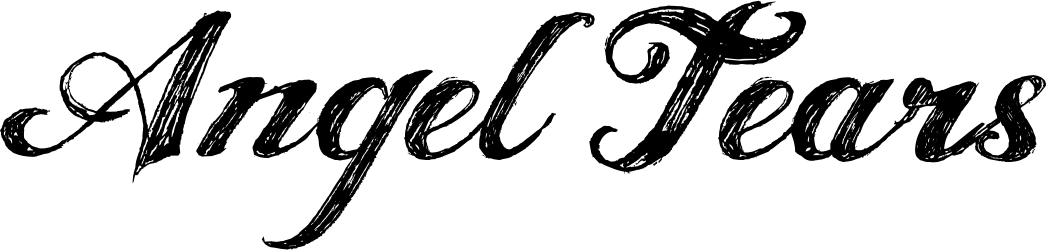
Angel Tears Font
If you need a cursive font for your text designs, you should take a look at Angel Tears. This one can stylishly show your layout. The letters give a classic vibe and they are designed as if someone has written them. Don’t waste your time and grab it right away. If you want more whiskey script fonts, head over to RB.